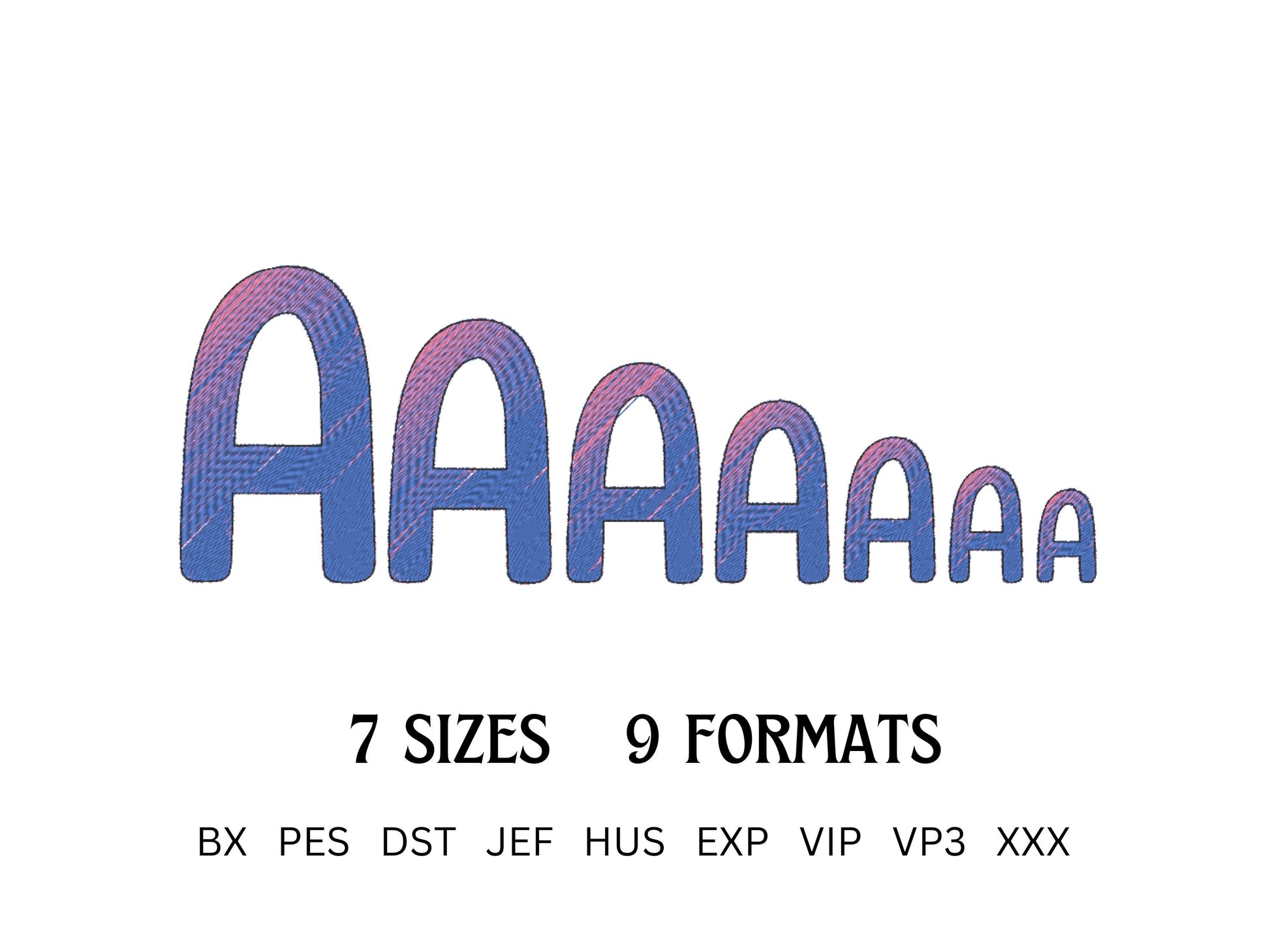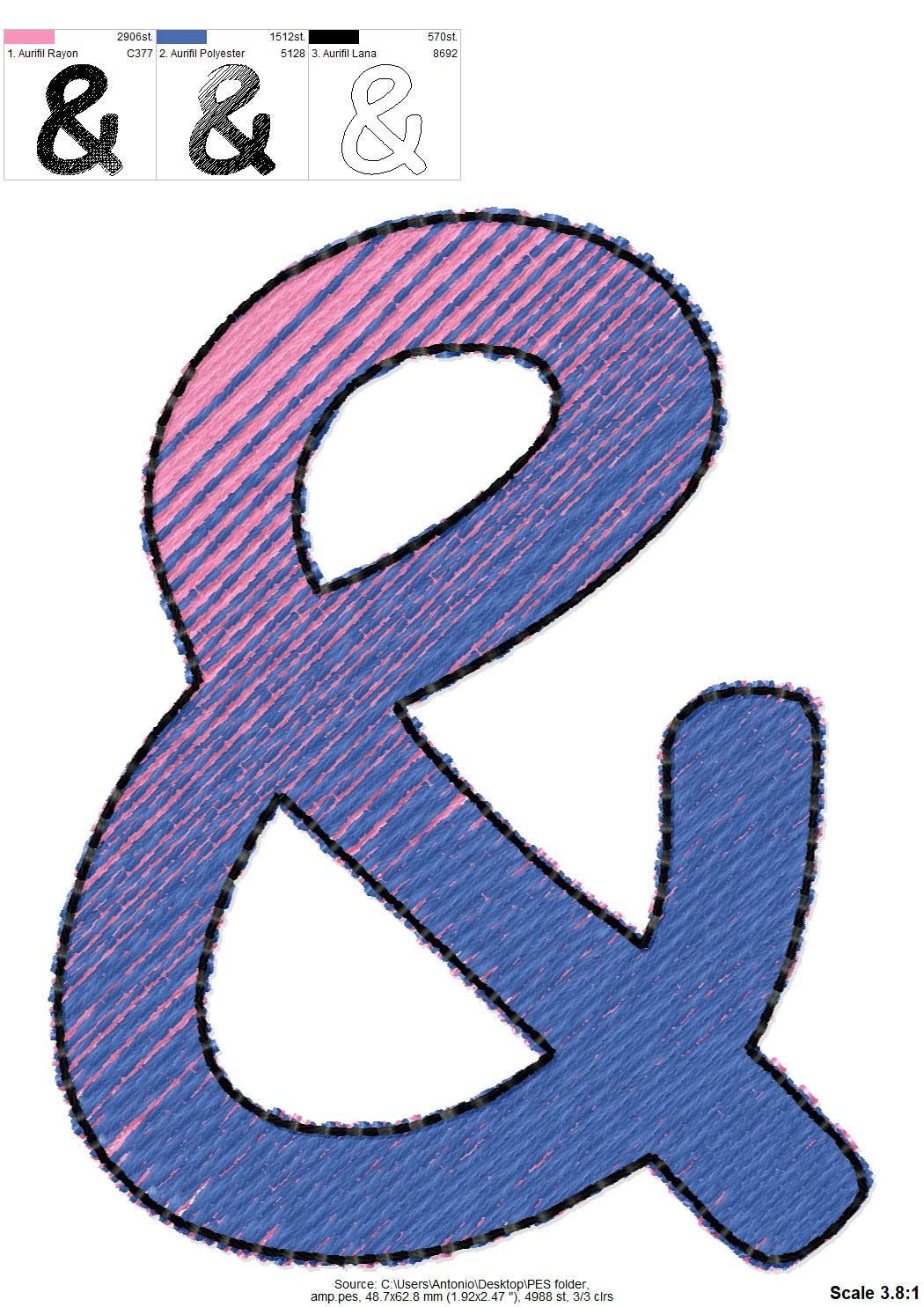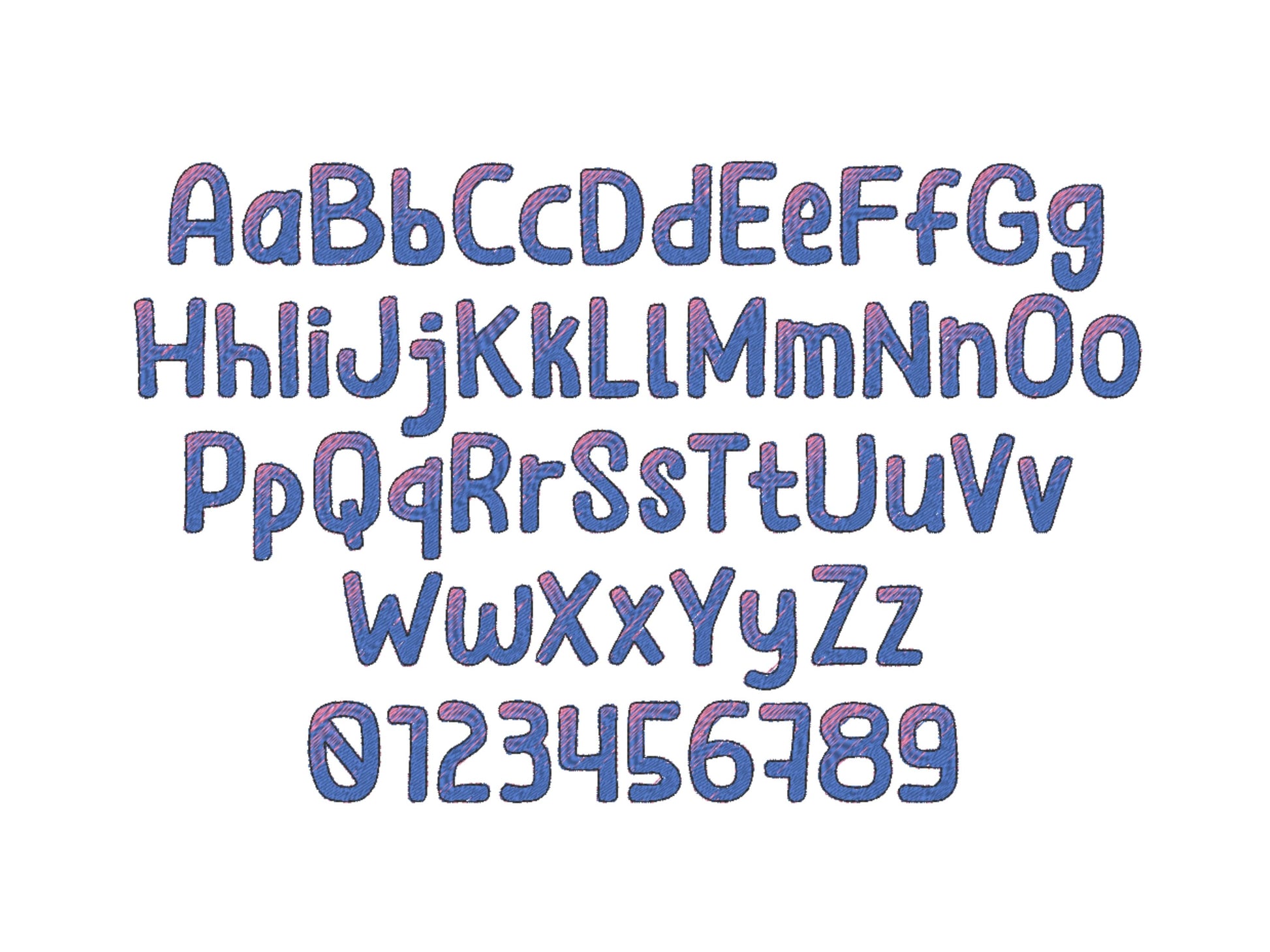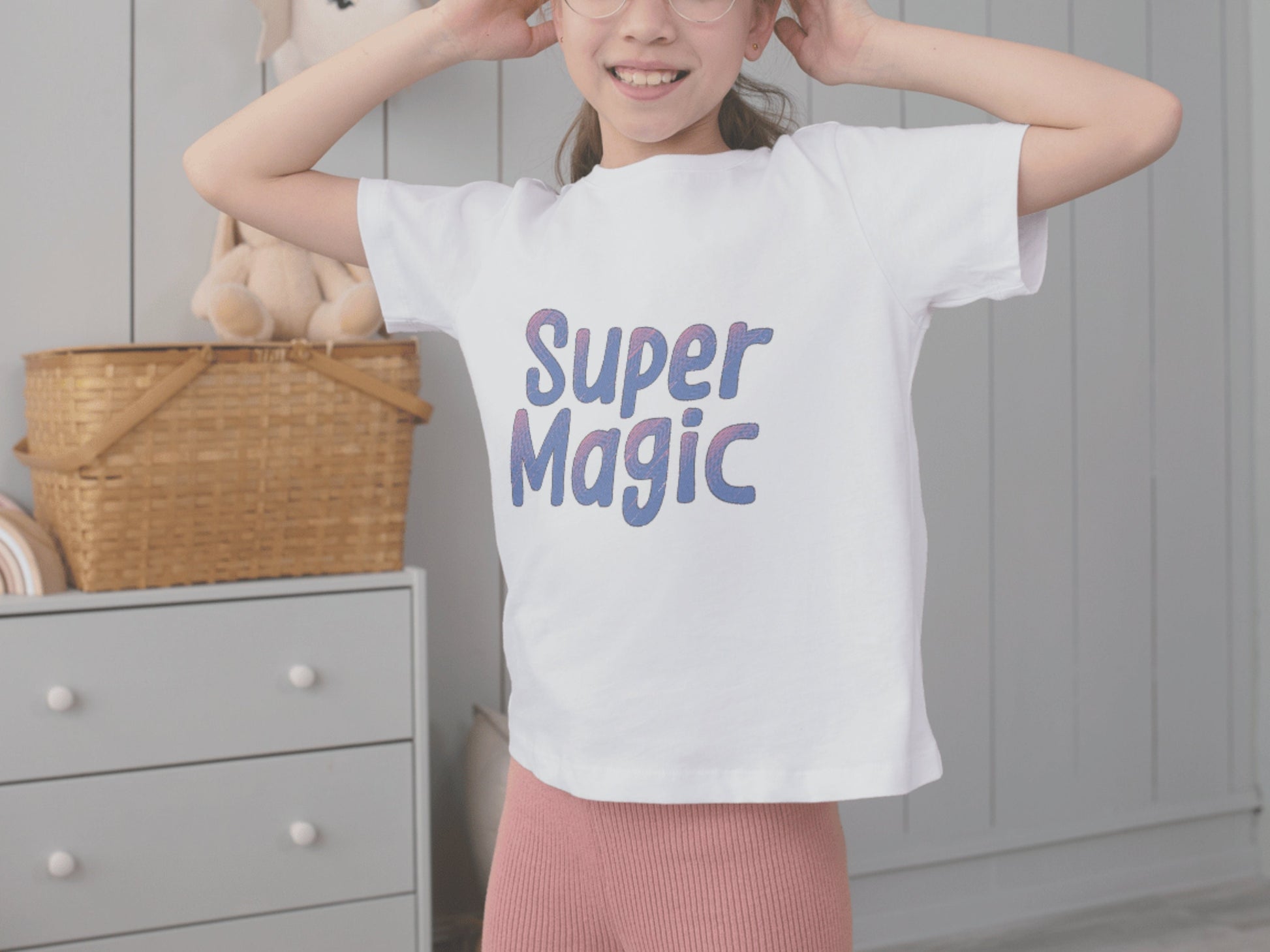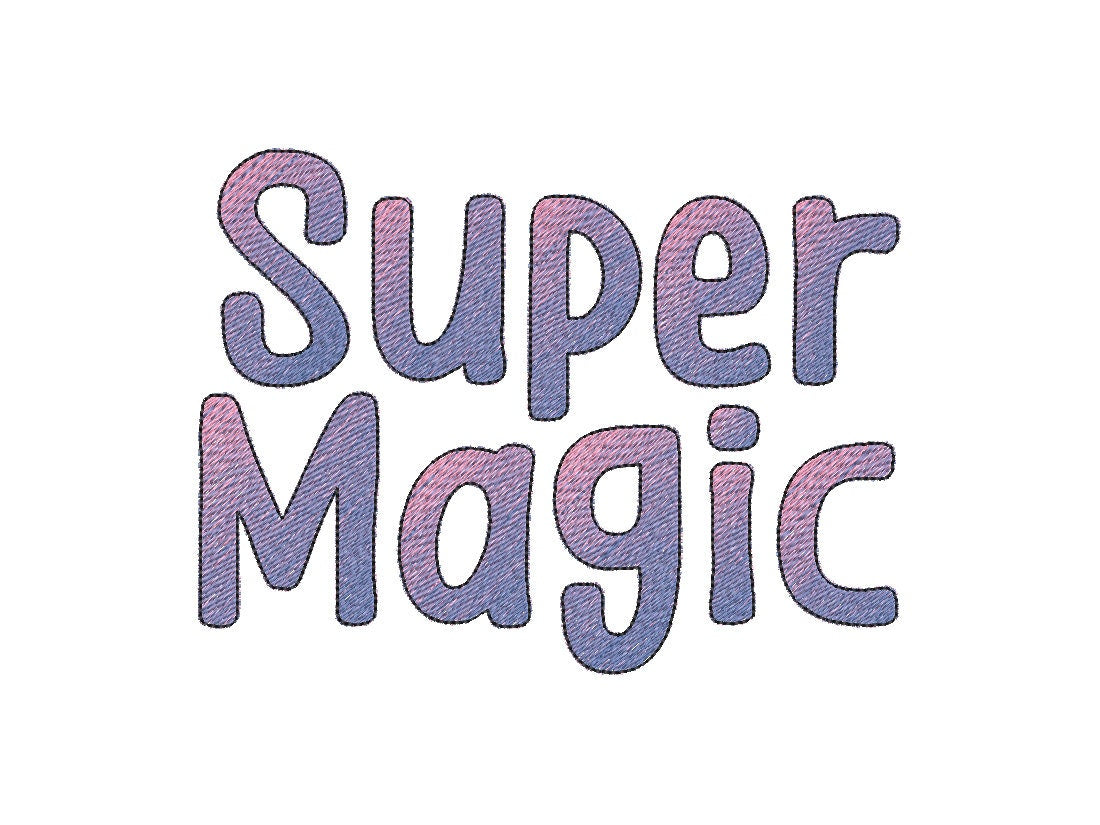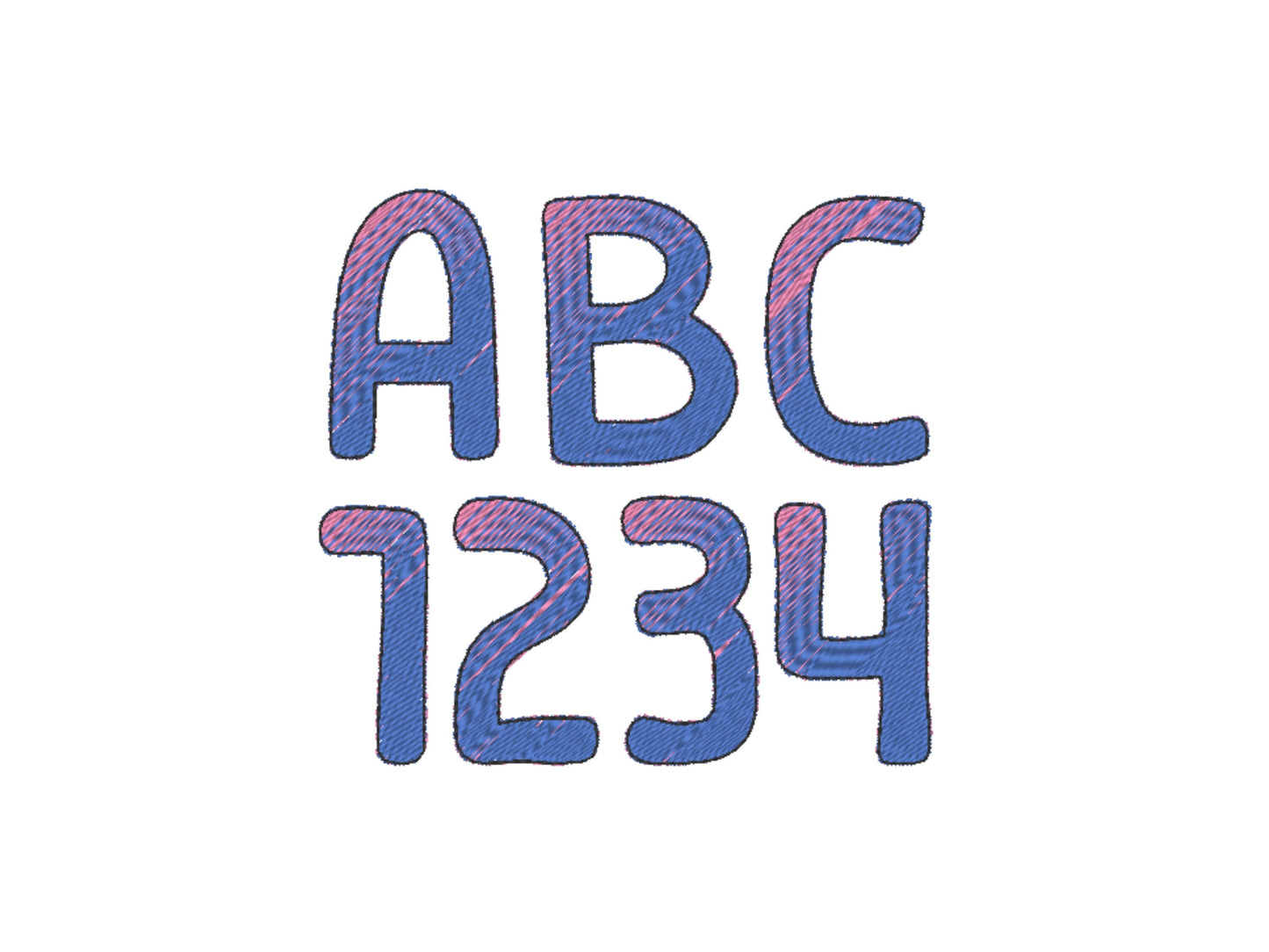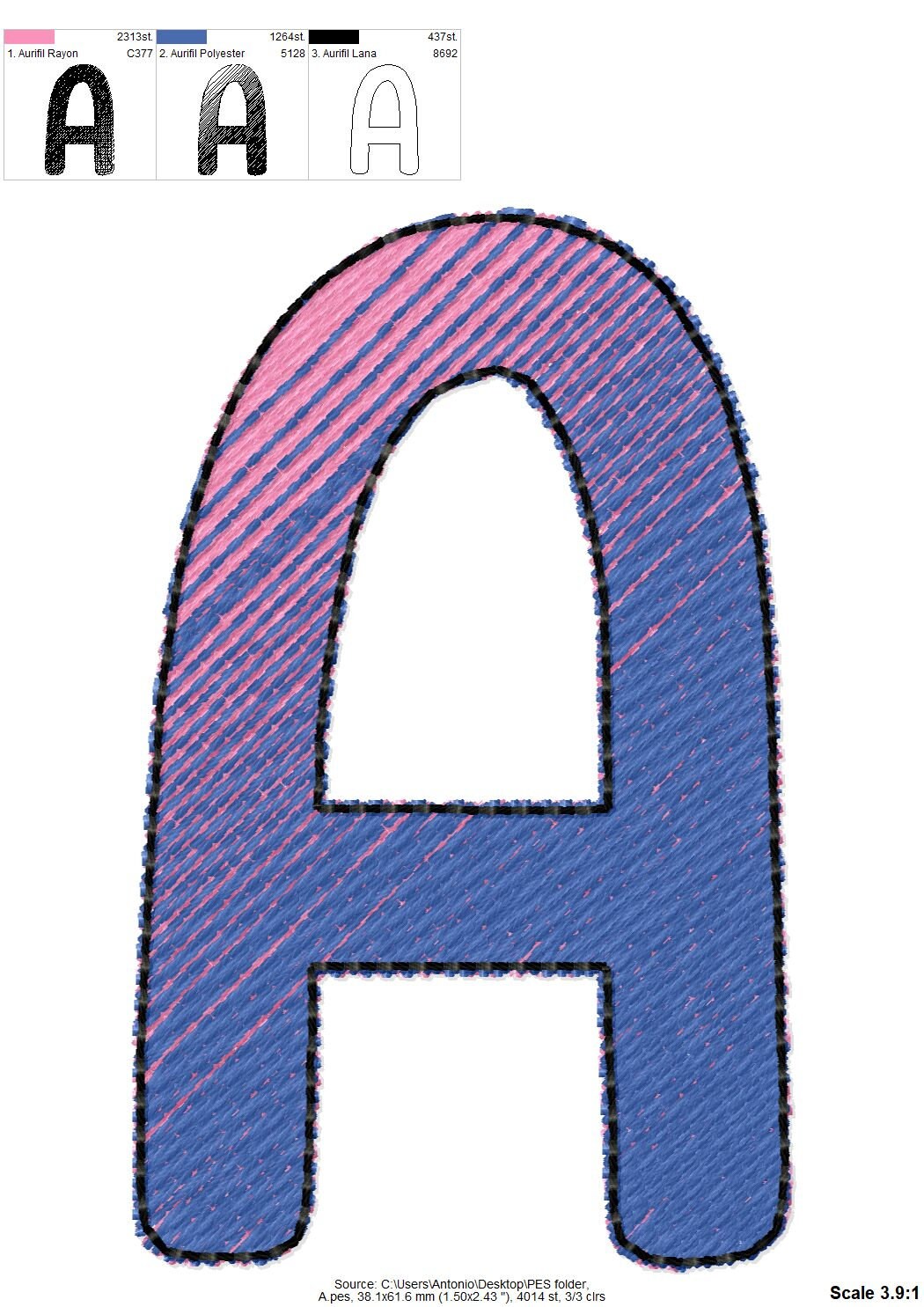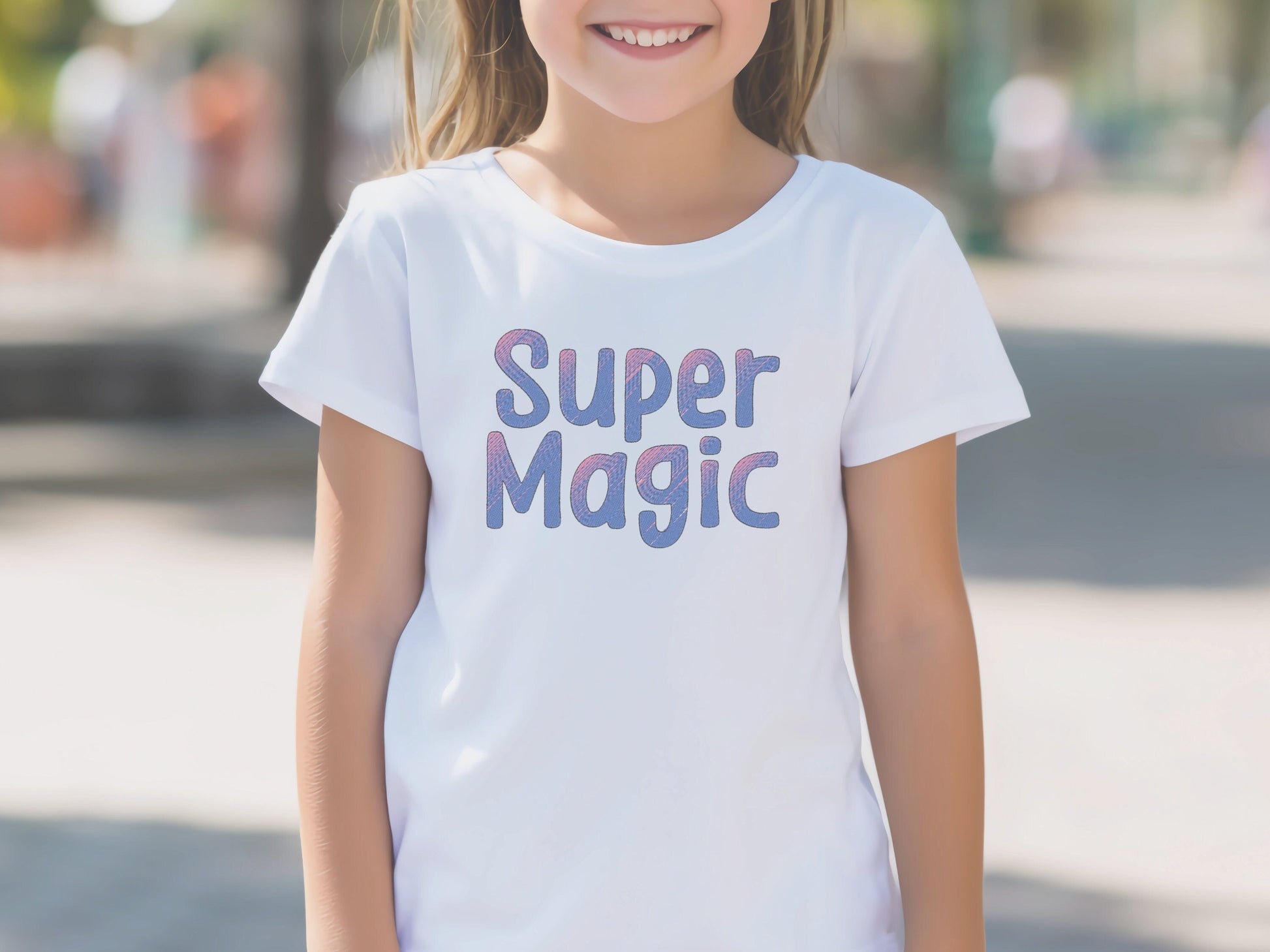
Magic Iridescent Ombre Font
Or click to open the linkA magic iridescent font filled with two ordinary thread colors and finished with an outline, no special thread needed. Pretty for names, monograms and sayings.
Uppercase and lowercase letters, numbers 0 to 9 and punctuation, in seven sizes: 1.2, 1.5, 2, 2.4, 3, 3.5 and 4 inches. Each letter is filled in two colors that blend into a shimmer, then finished with an outline.
- Iridescent 2-color font with outline
- Uppercase and lowercase letters, numbers 0-9, punctuation
- 7 sizes, 1.2 to 4 in